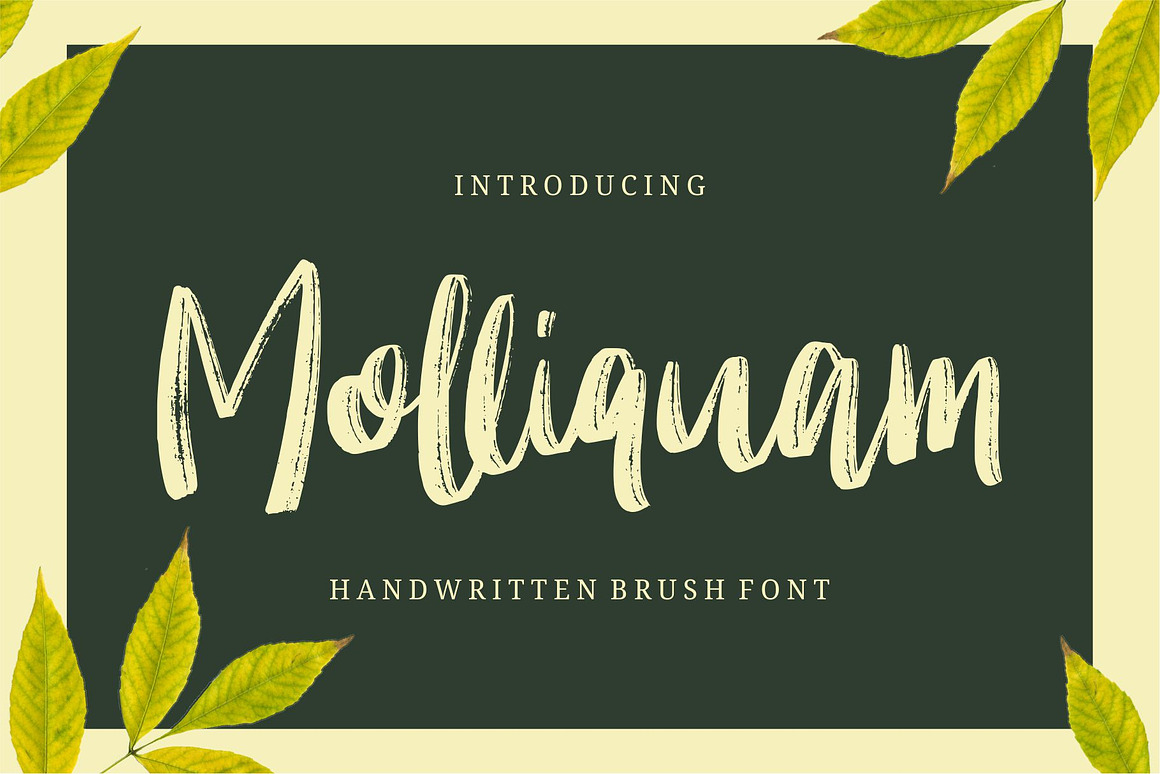
Molliquam - Handwritten Font
Molliquam Handwritten Font is perfect for personal branding projects, artisanal craft businesses, intimate café identities, handmade product packaging, personal blog designs, and authentic storytelling platforms. This charming typeface excels in handwritten letter designs, personal journal applications, craft workshop materials, and any application where genuine human touch and authentic handwriting create meaningful connections with audiences seeking personal authenticity.
What makes Molliquam Handwritten Font so exciting is its exceptional ability to capture the warmth and authenticity of natural handwriting through organically flowing letterforms that feel genuinely penned by hand. The font features natural variations, personal character touches, and handwritten imperfections that create an immediate sense of intimacy and human connection. Its authentic presence makes it perfect for brands that prioritize personal relationships and handcrafted quality.
Molliquam Handwritten Font comes in a personal family including Light, Regular, Medium, Bold, and Signature weights. Each style features complete uppercase and lowercase character sets, handwritten symbols, personal numerals, and intimate punctuation marks. The font family also includes natural alternates, handwritten ligatures, and personal variations that allow designers to create truly authentic communications with handcrafted appeal and professional warmth.
The font's handwritten character makes it particularly effective for craft artisans, personal coaches, intimate cafés, and authentic storytelling brands. Its natural readability ensures that Molliquam Handwritten Font communicates clearly while maintaining its distinctive personal personality. The font's ability to evoke intimacy and authentic connection makes it an invaluable pen for any project seeking to celebrate human authenticity and connect with audiences through the timeless appeal of handwritten communication, personal touch, and the beautiful imperfection of genuine human expression.